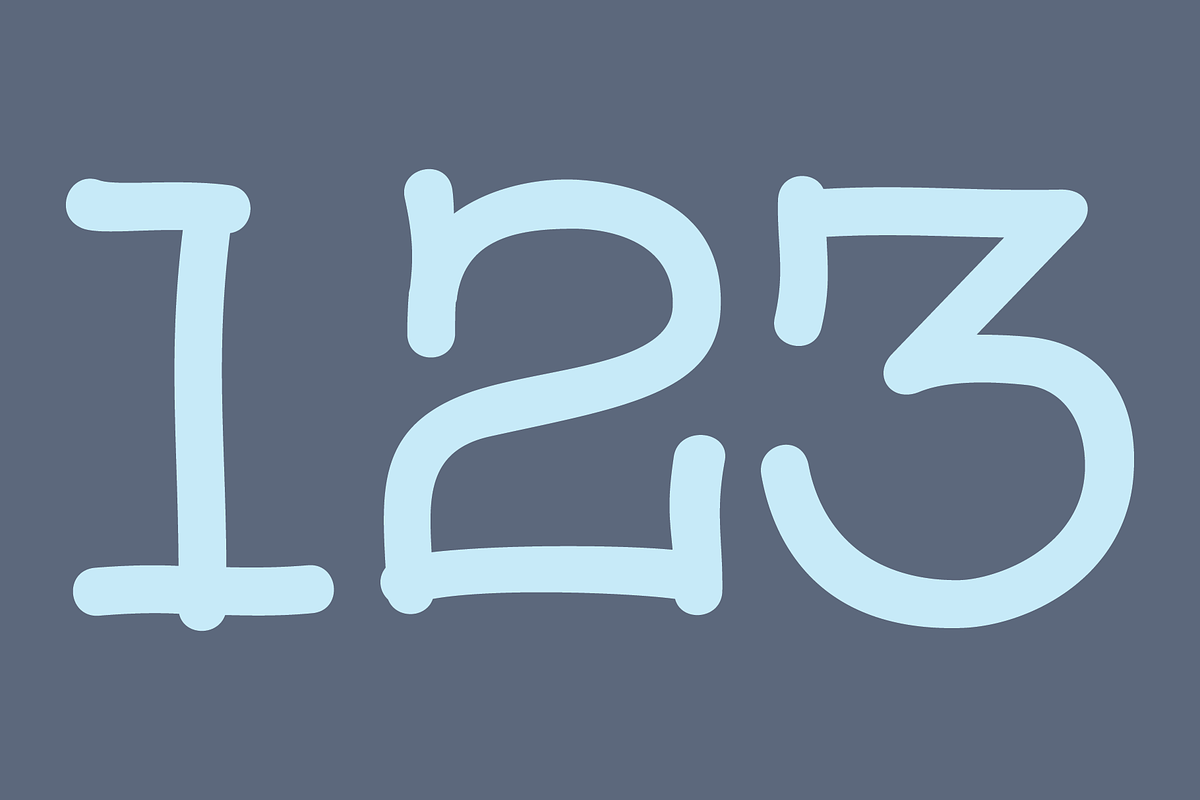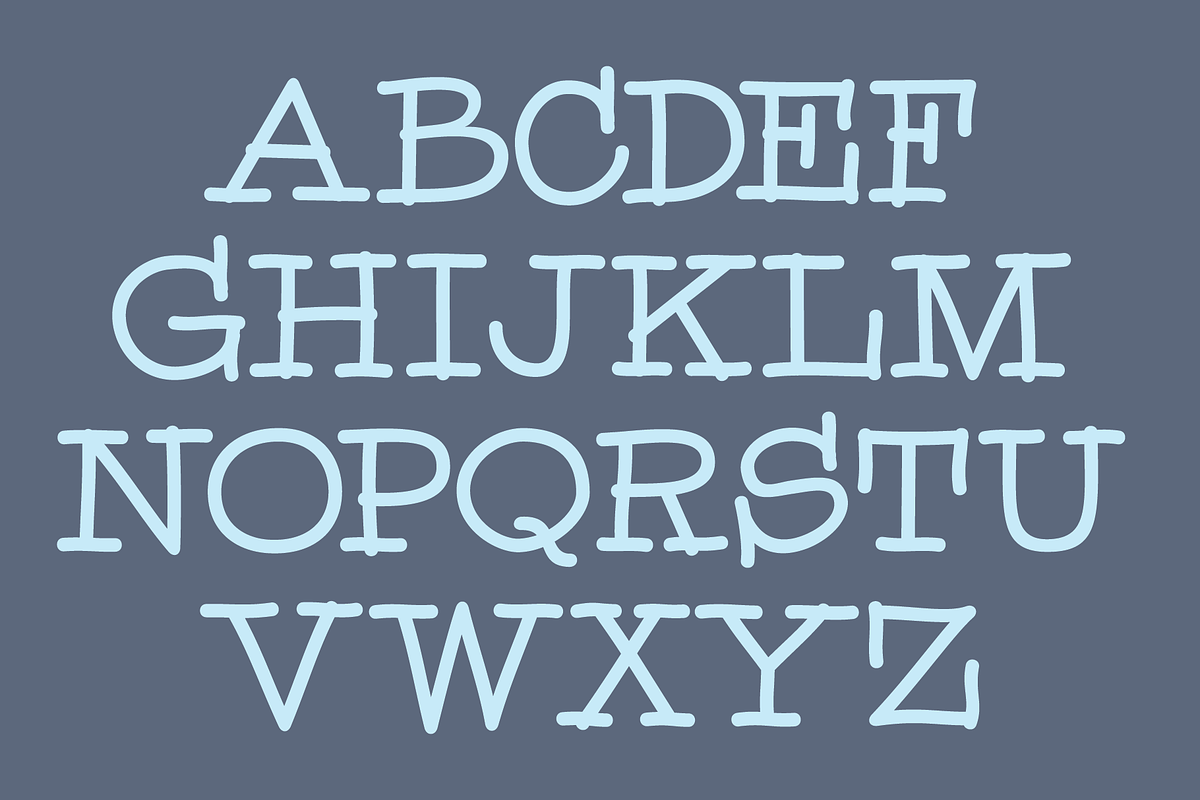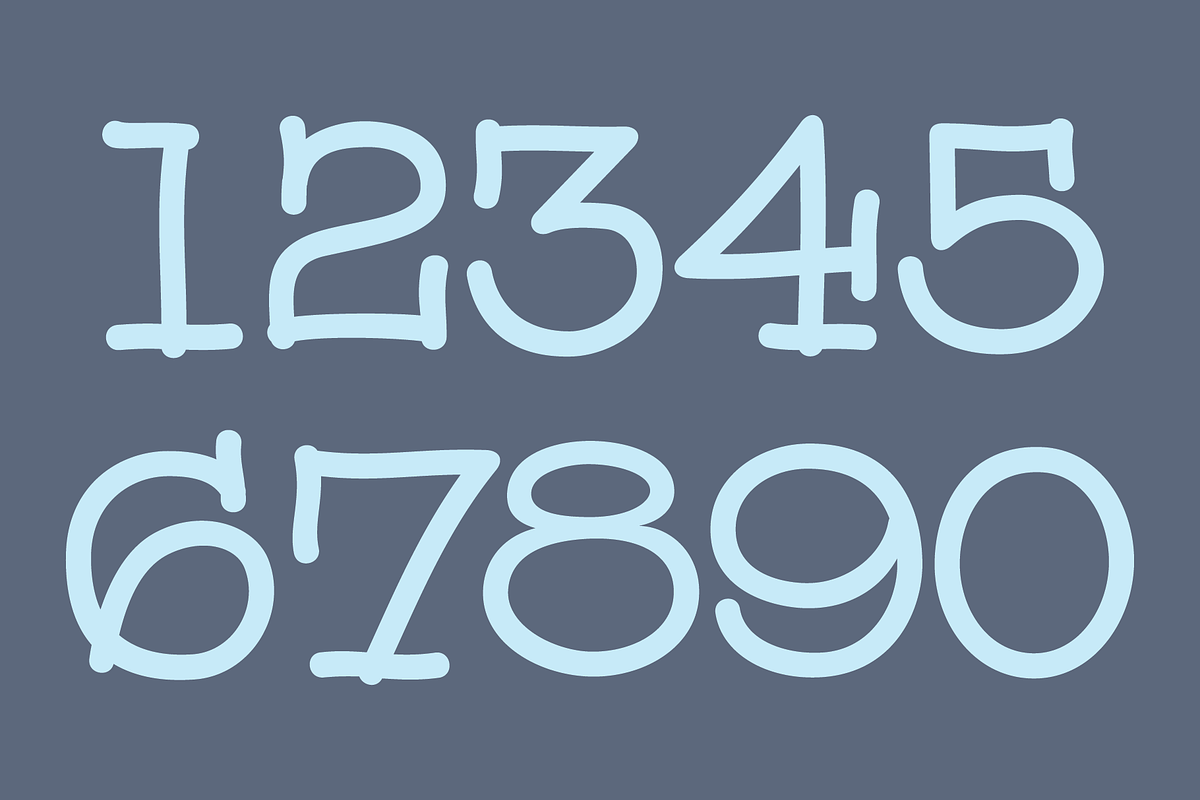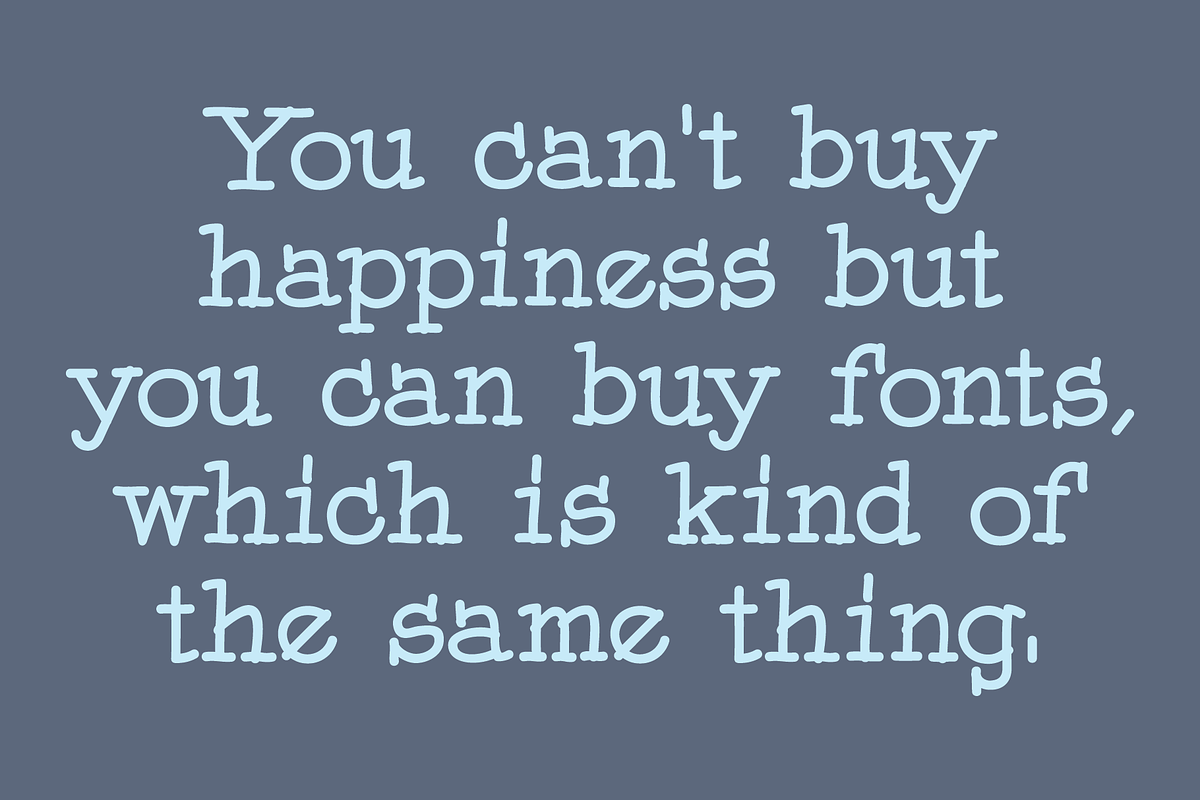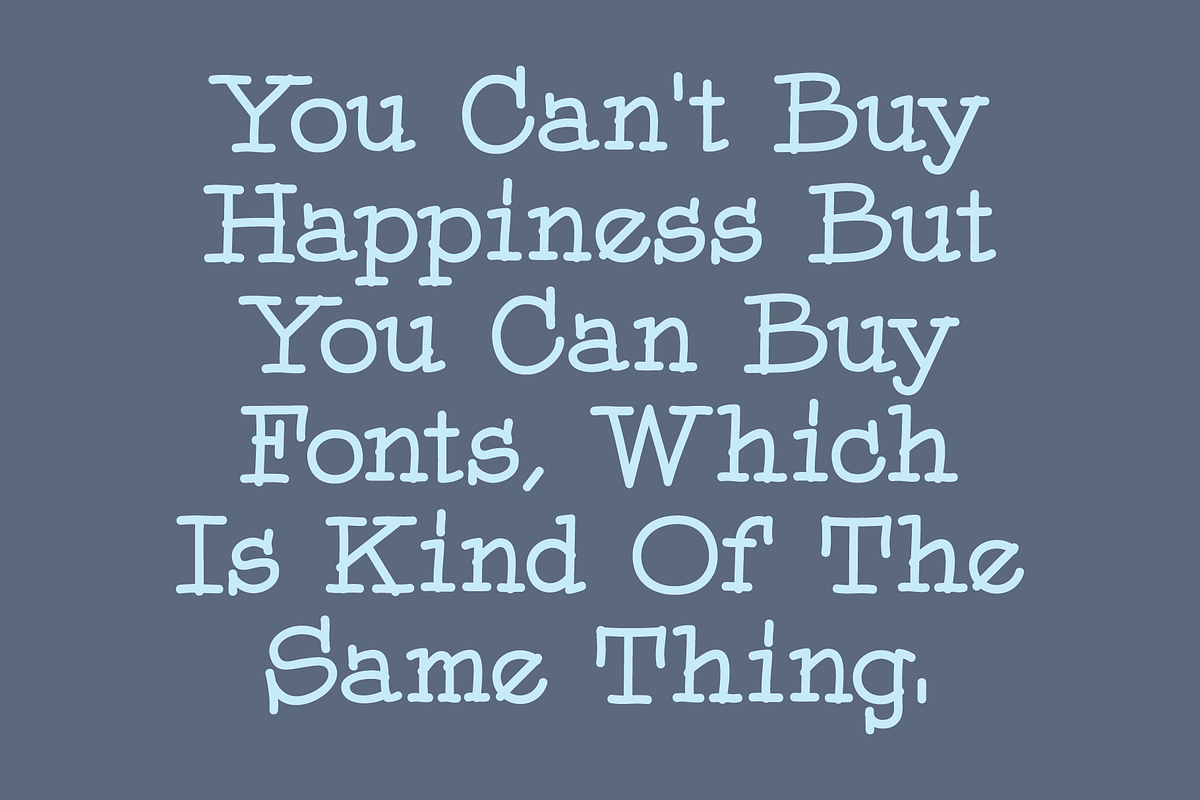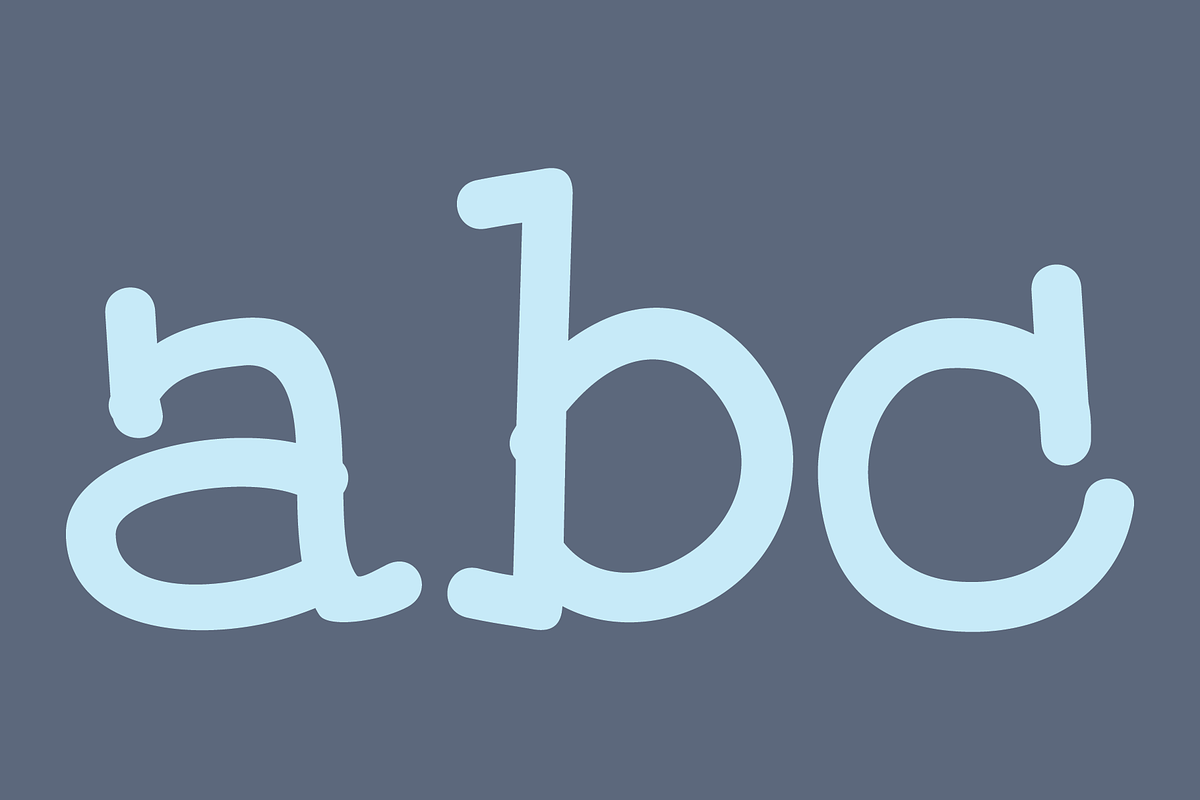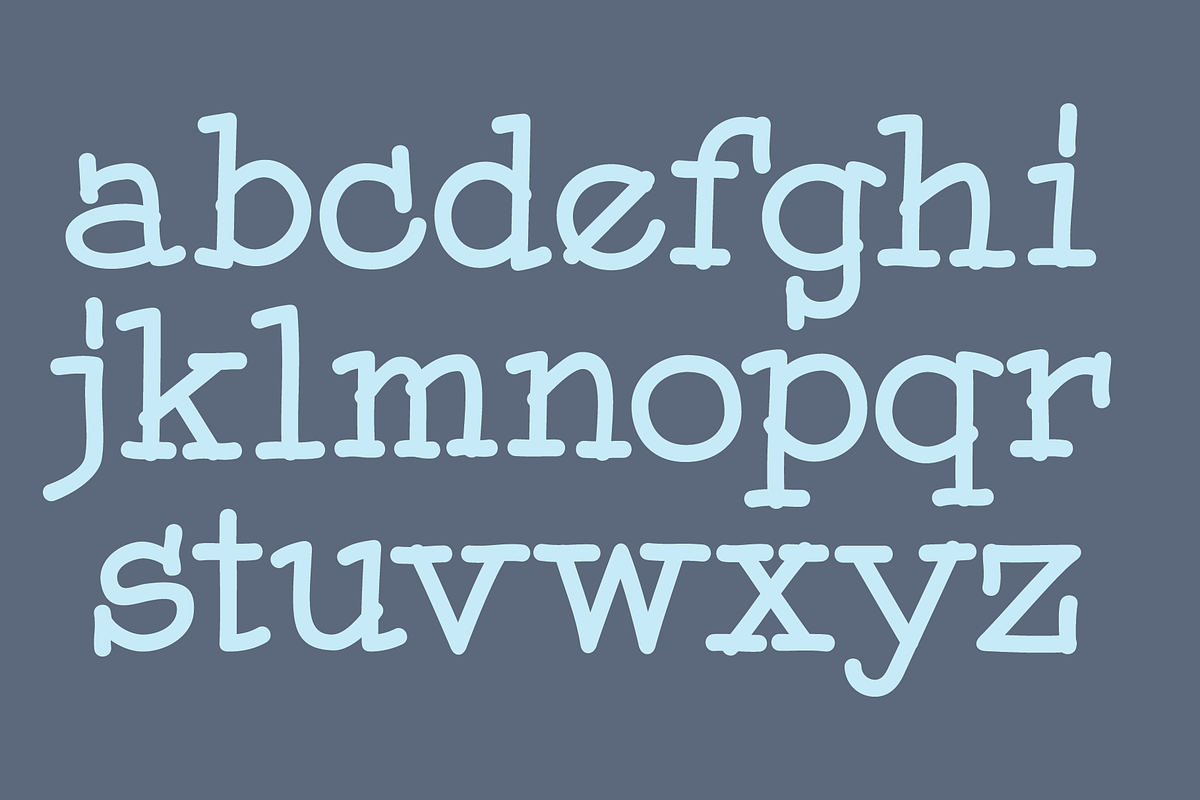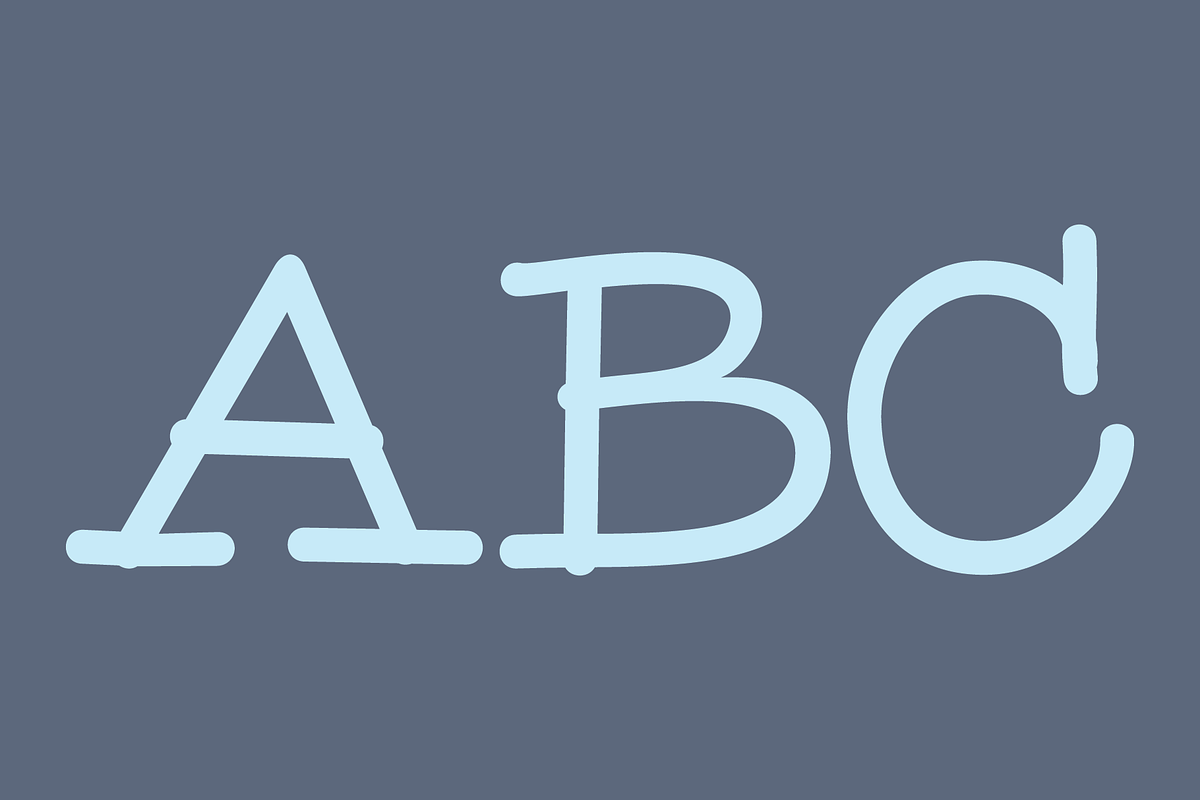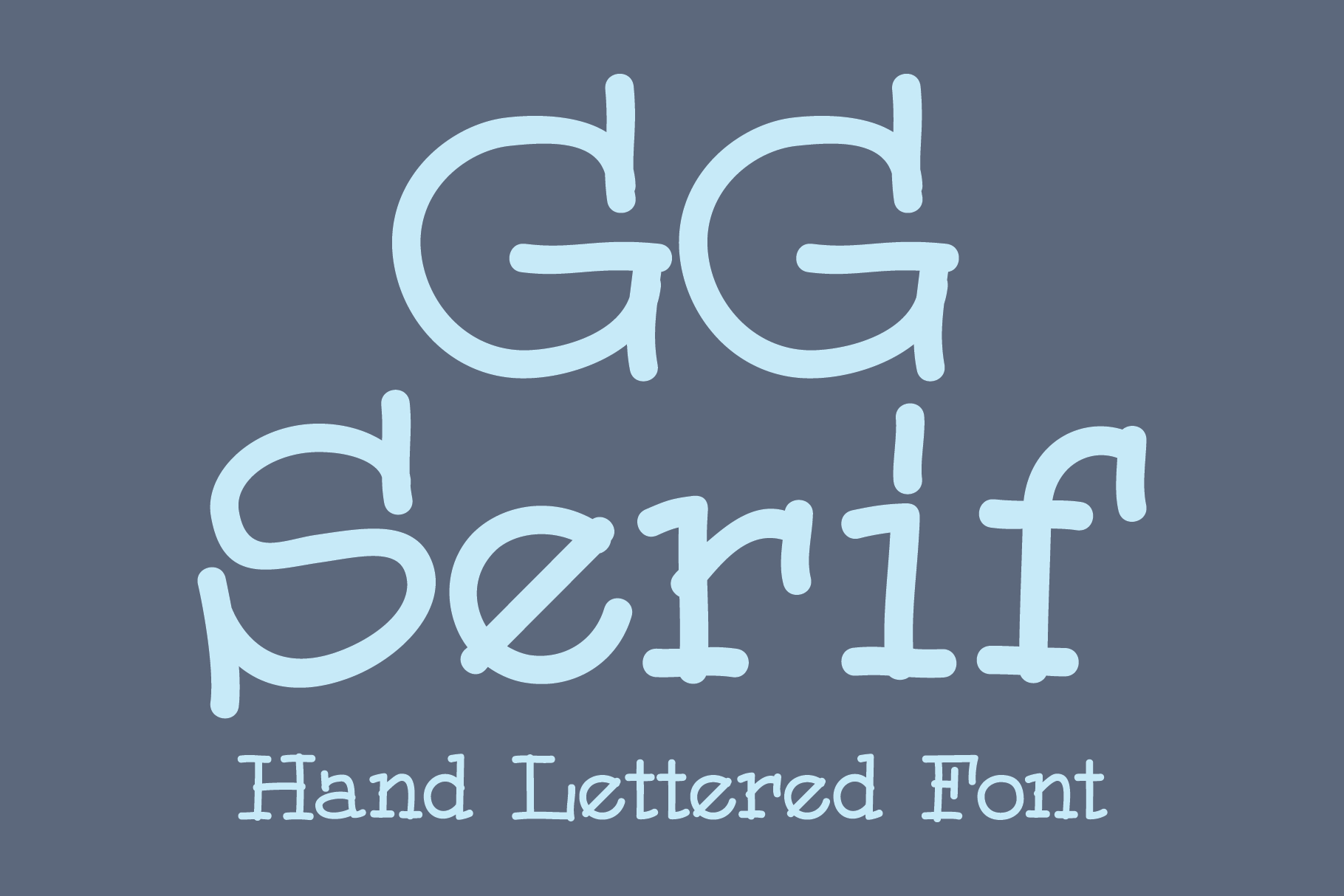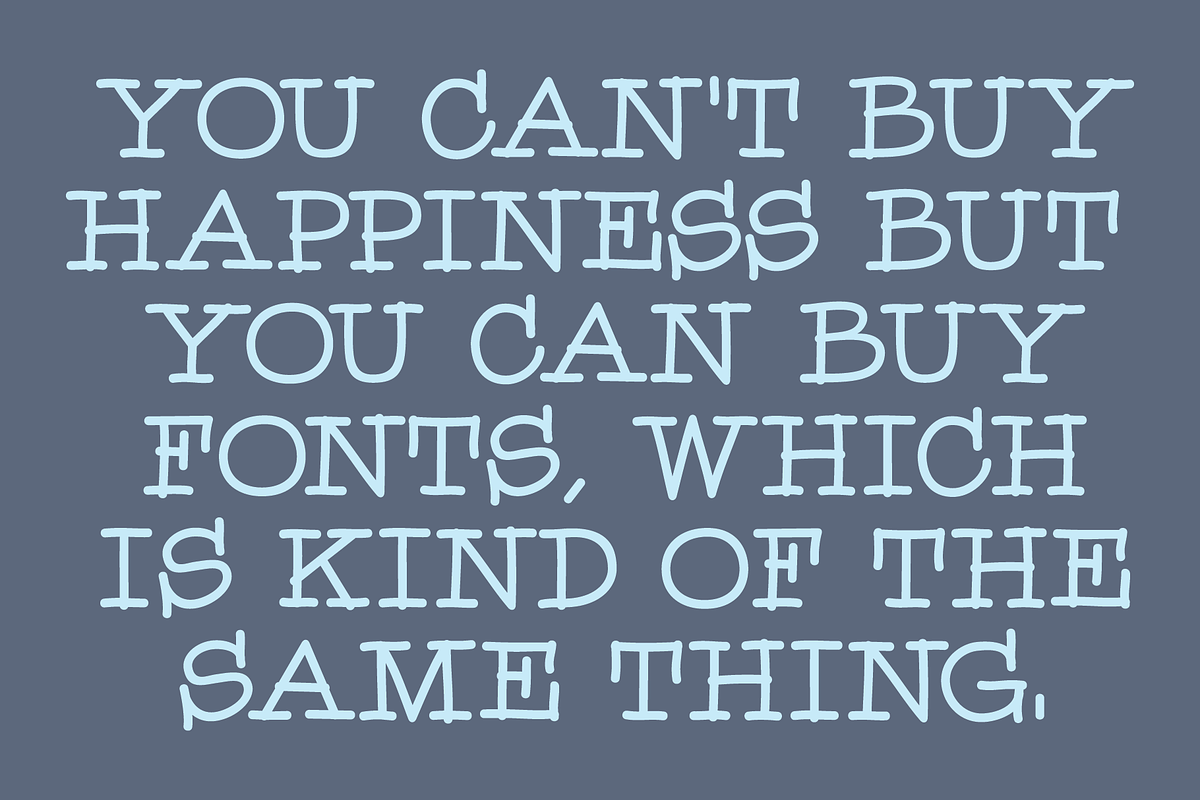
GG Serif Font
GG Serif is based on a hand lettering style of designer Gerald Gallo. It is casual and informal and ideal for use in conveying these qualities. It is excellent for casual text and at large sizes an effective casual display font. The font includes upper and lowercase alphabets, numbers, punctuation, accented characters, symbols, and miscellaneous characters.